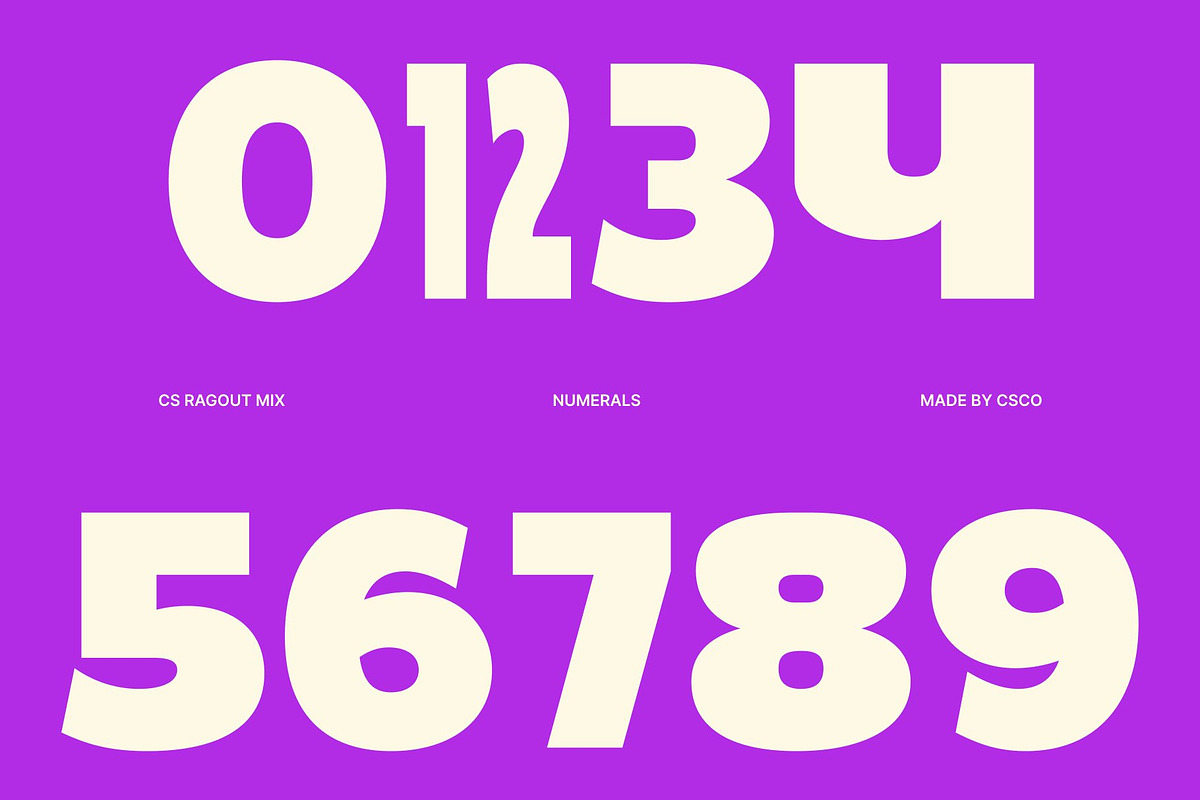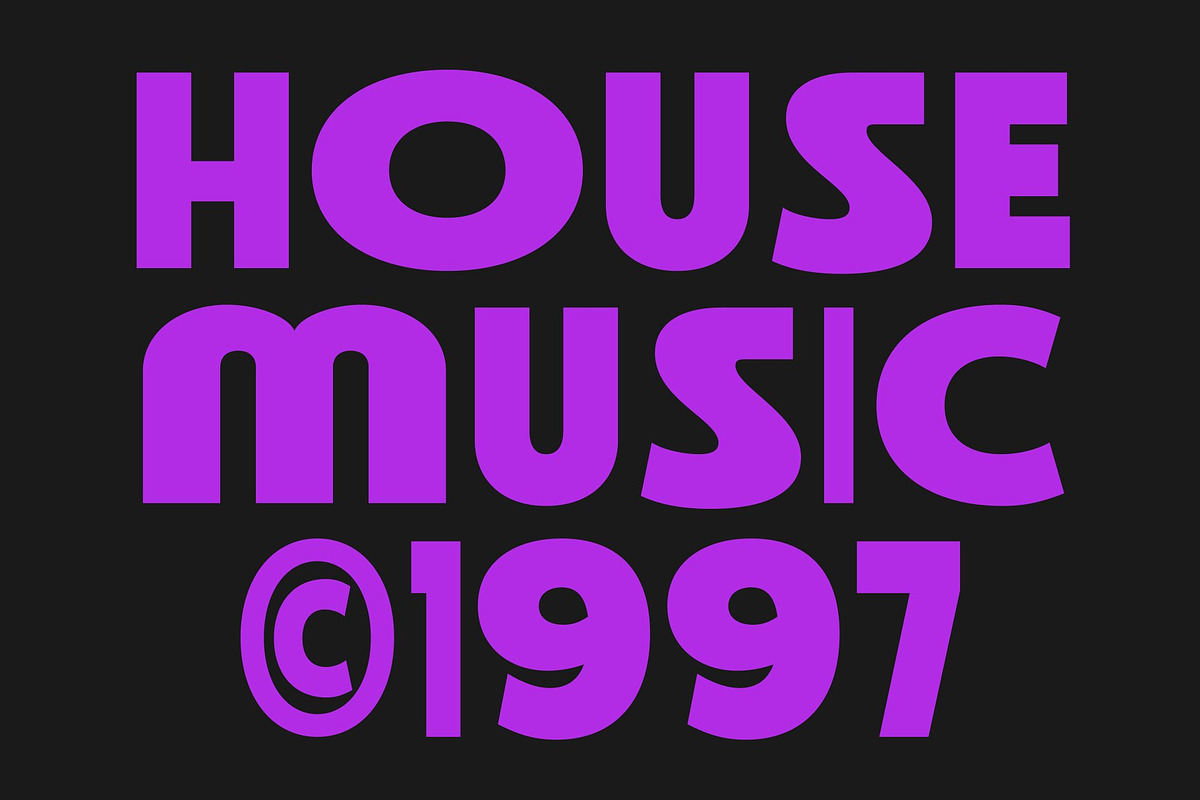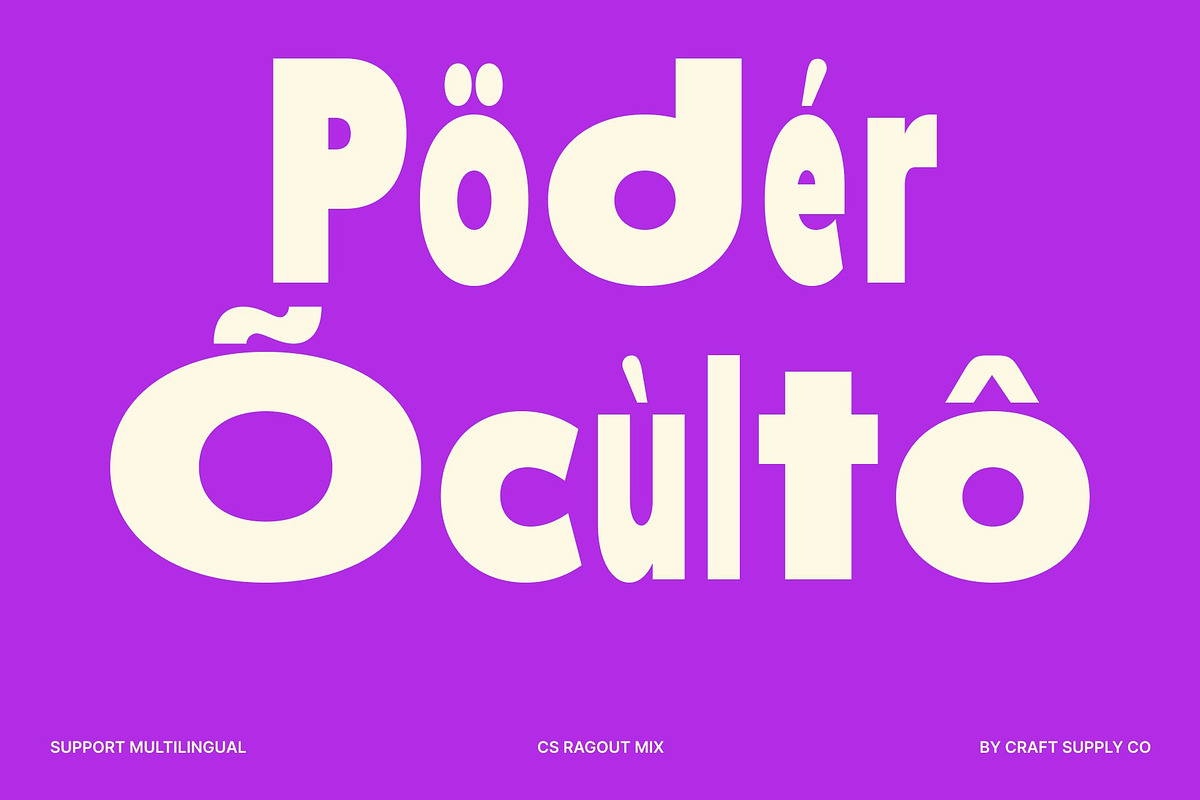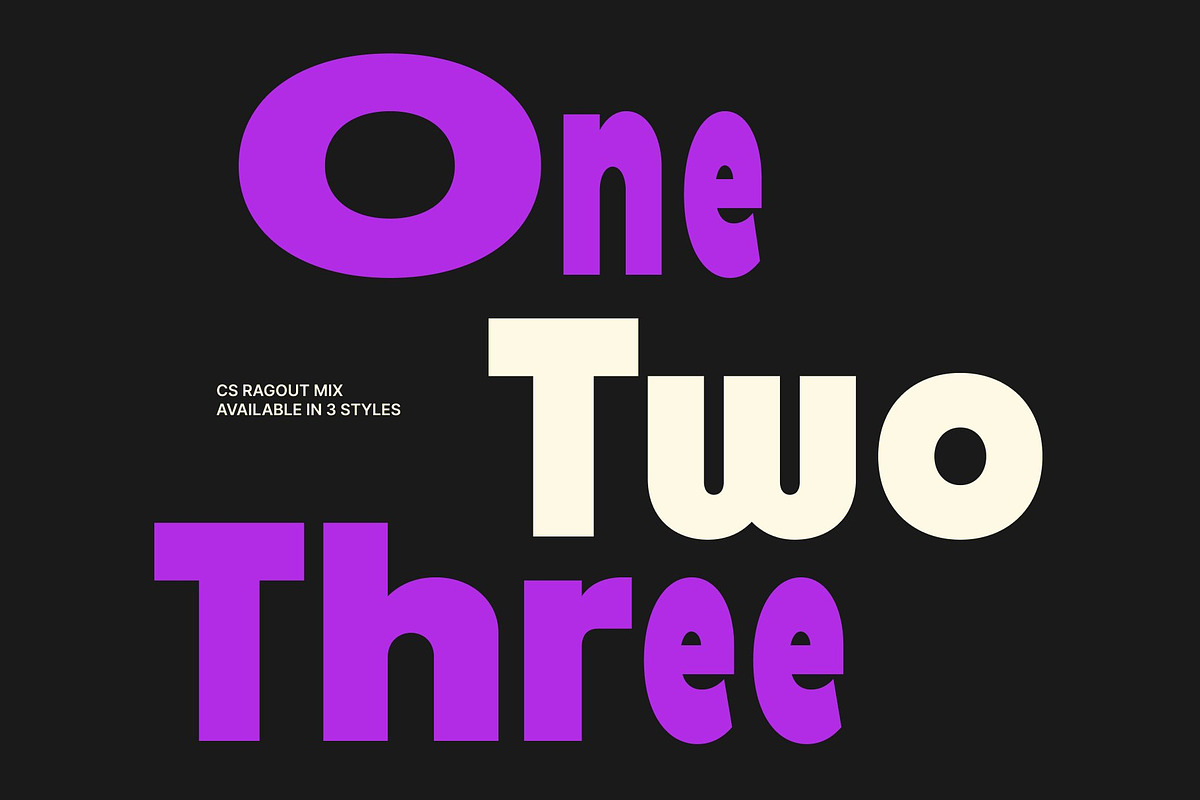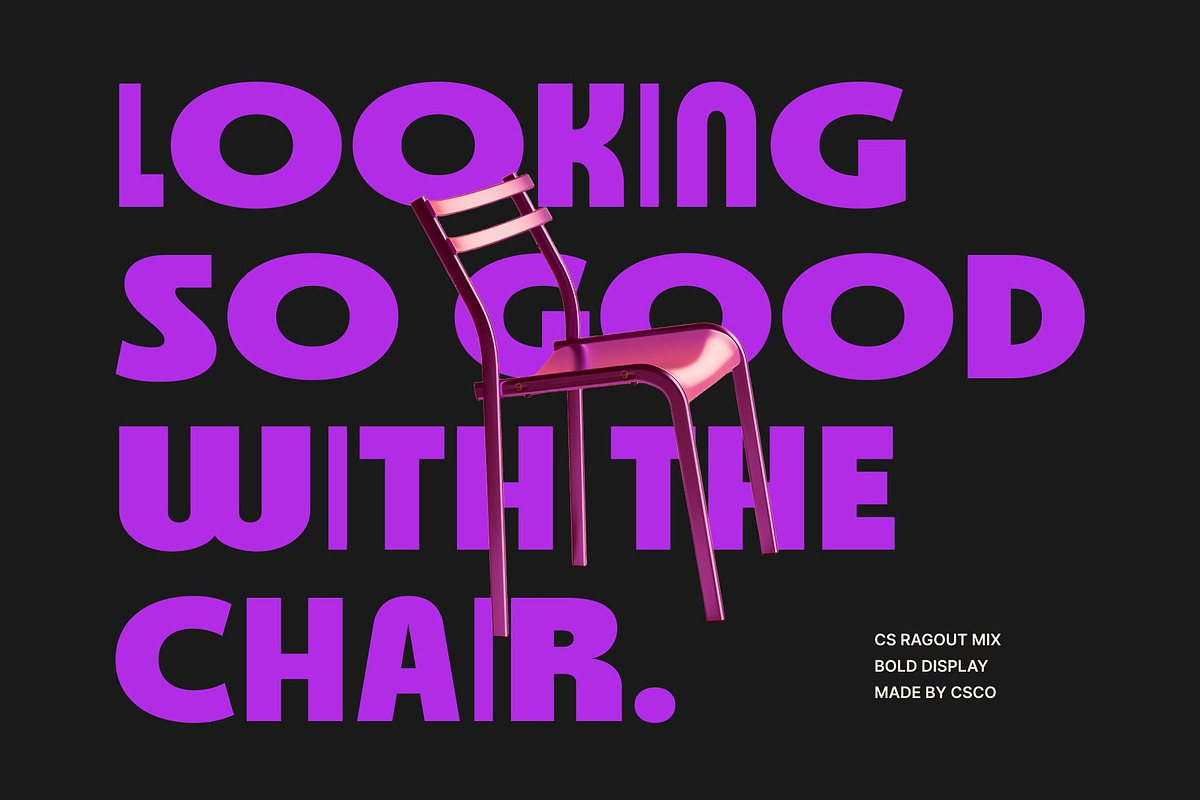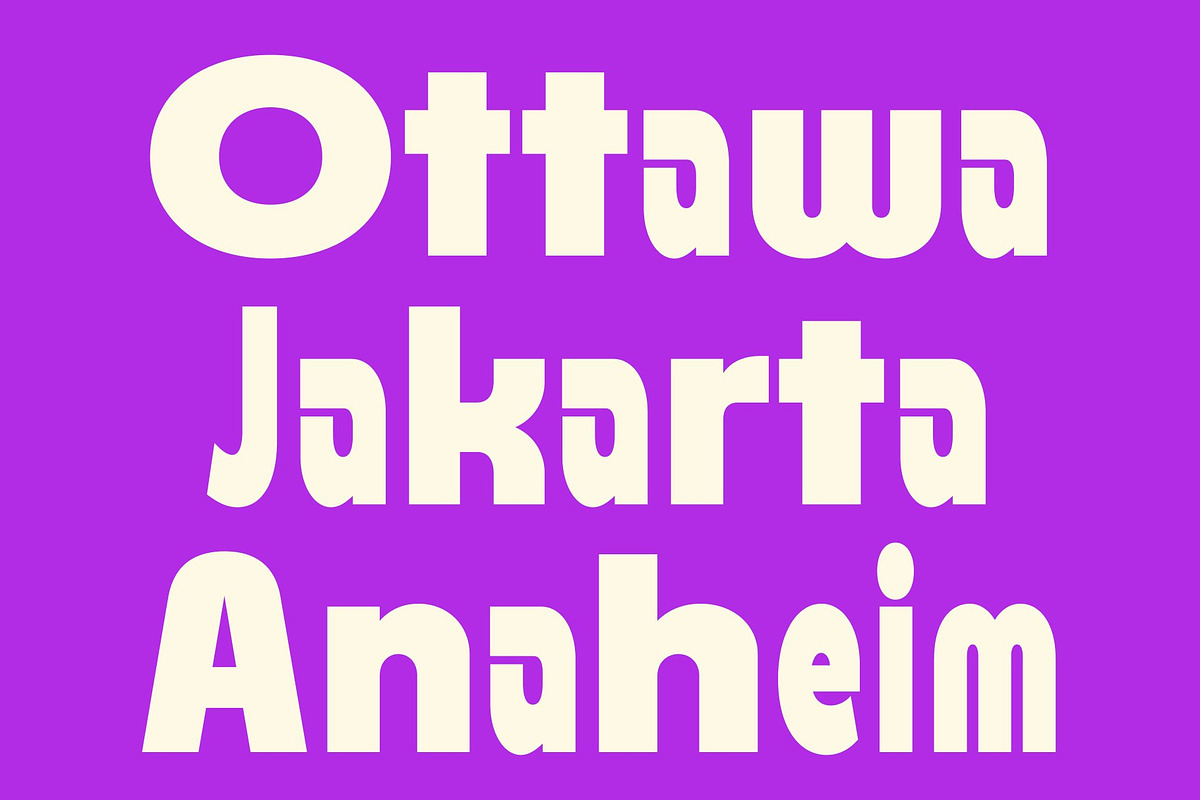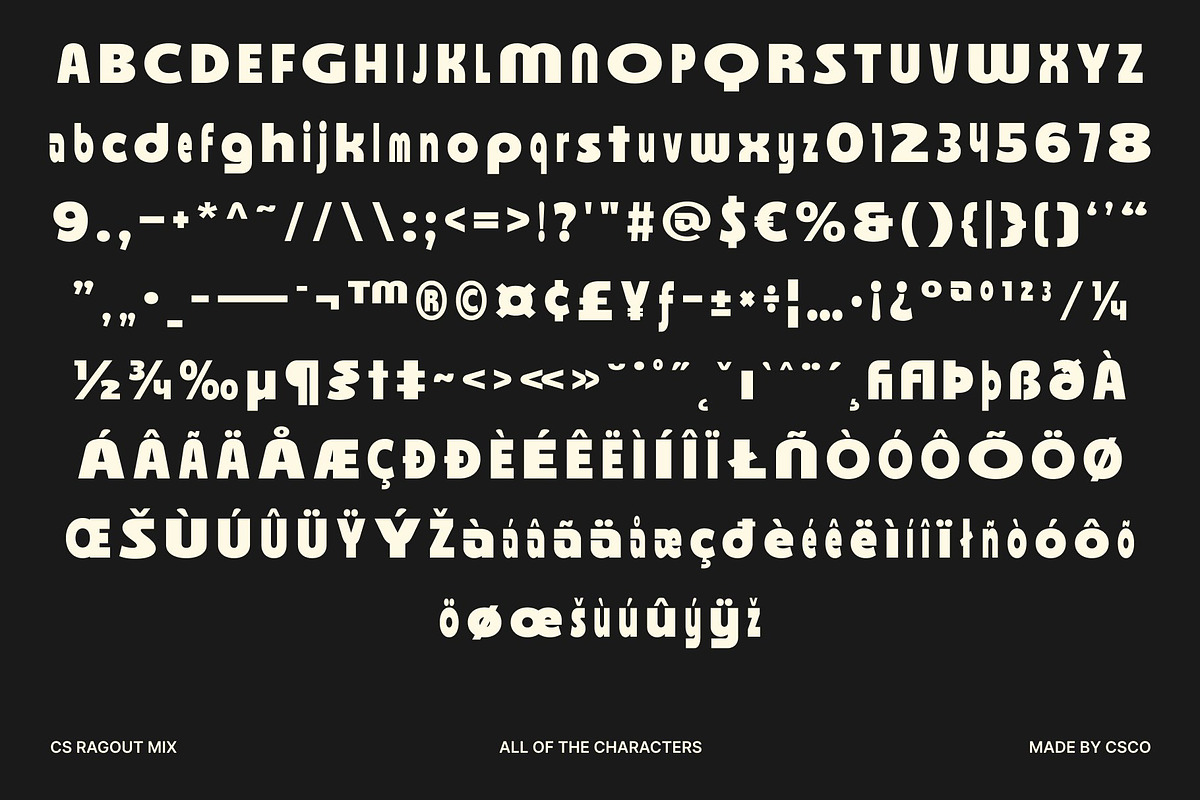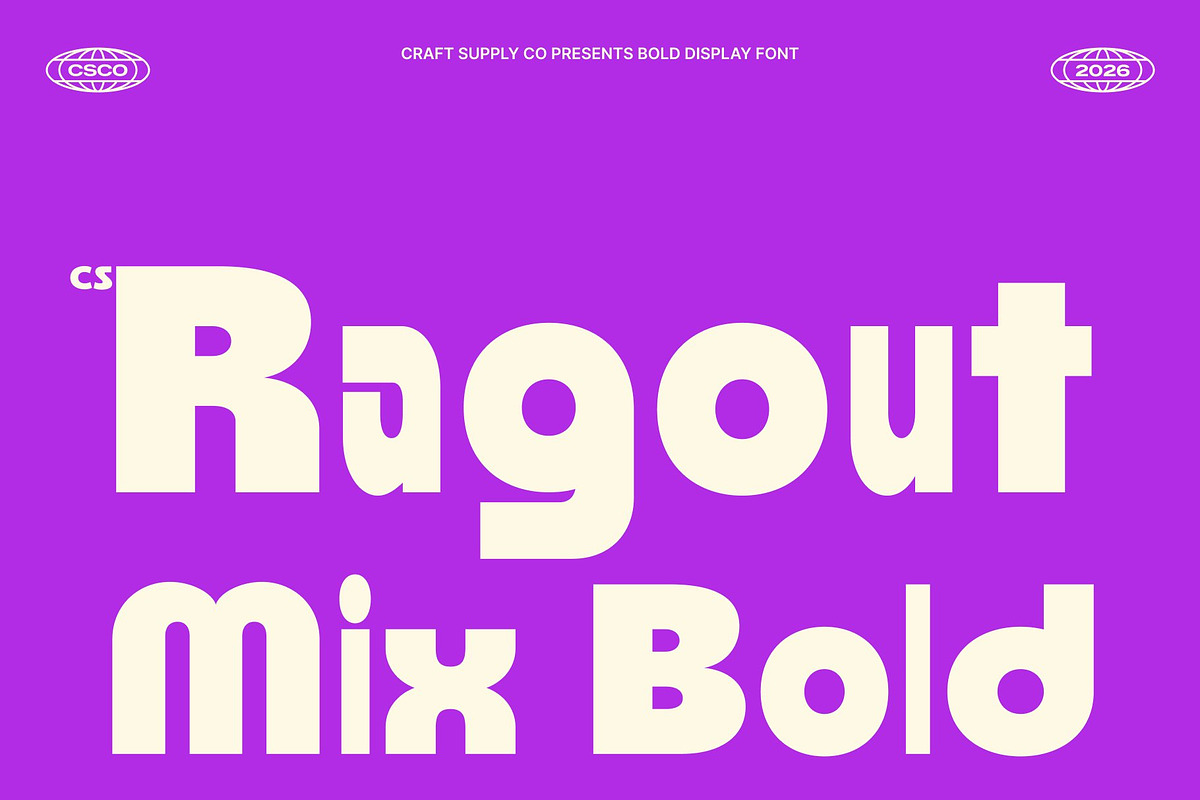
CS Ragout Mix
CS Ragout Mix – Bold Display Sans Serif: Funky Energy with Confident Modern Style
Bold Display Sans Serif with Mixed Style Character This is a modern sans serif display font designed to combine bold strength with playful creative energy. Built with thick dynamic forms and expressive details, this typeface introduces a distinctive mixed-style concept that adds rhythm, contrast, and personality to every composition.
A Dynamic Blend of Bold and Regular Letterforms The defining feature of this font lies in its creative fusion of bold and regular styles. This mixed-weight approach creates visual movement and energetic hierarchy, making headlines feel more expressive and engaging. The contrast between strong strokes and balanced forms enhances readability while adding a unique contemporary character that stands out across different layouts.
Playful Curves with Contemporary Confidence This font embraces unconventional proportions and smooth curves that create a sense of motion and fun. Its playful design details introduce warmth and artistic freedom, while its structured construction maintains clarity and professionalism. This balance allows the font to feel both experimental and highly functional in modern creative environments.
Perfect for Branding, Posters, and Expressive Visual Design From branding and posters to product packaging and social media graphics, this font adapts effortlessly to projects that demand attention and originality. Its bold presence ensures maximum visibility, while its modern expressive style gives every design a memorable personality.
CS Ragout Mix One
CS Ragout Mix Two
CS Ragout Mix Three